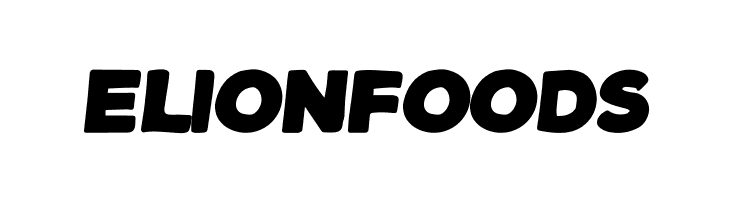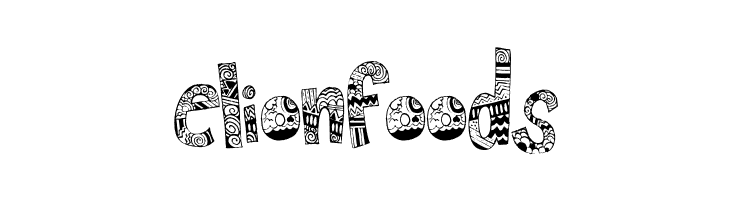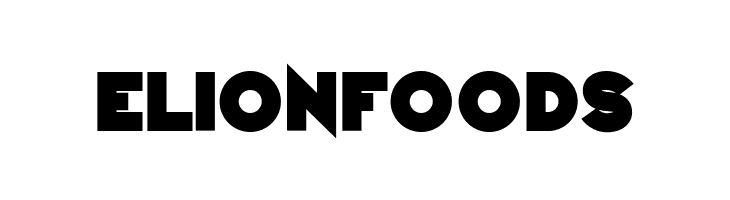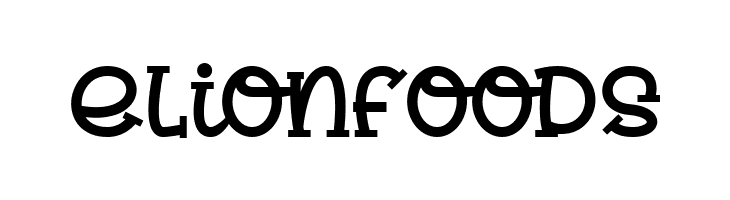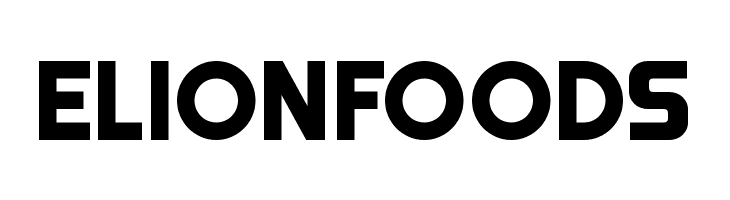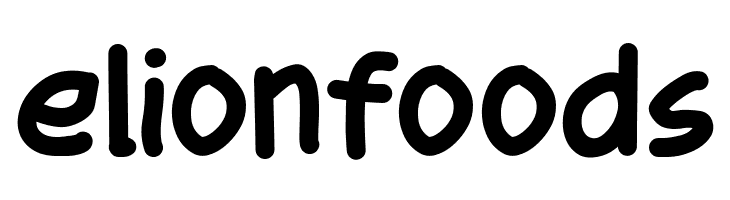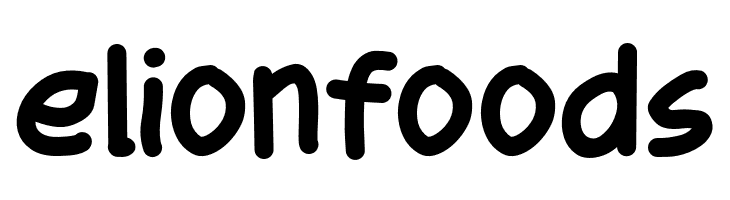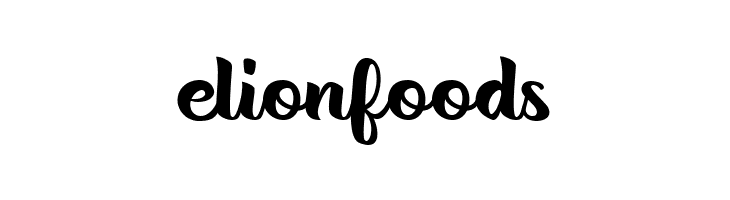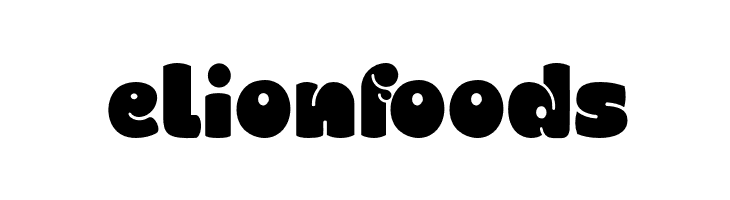
( Fonts by Subectype & Orenari )
A playful, bubbly font with rounded, hand-drawn characters.
( alexsky0.deviantart.com )
A decorative, pattern-filled font with a playful and artistic style.
A bold, geometric font with strong, impactful characters.
( Fonts by Bangkit Tri Setiadi )
A playful, decorative font with bold, whimsical characters.
A bold, modern font with geometric shapes and consistent stroke width.
( Fonts by Afiq Anggriawan )
A playful, bold, and rounded font with a hand-drawn, comic-like style.
( Fonts by Afiq Anggriawan )
A playful, hand-drawn comic-style font with rounded edges and a casual feel.
A bold, flowing script font with elegant, connected characters.
( Fonts by 177Studio )
A bold, playful font with rounded edges and a bubbly aesthetic.